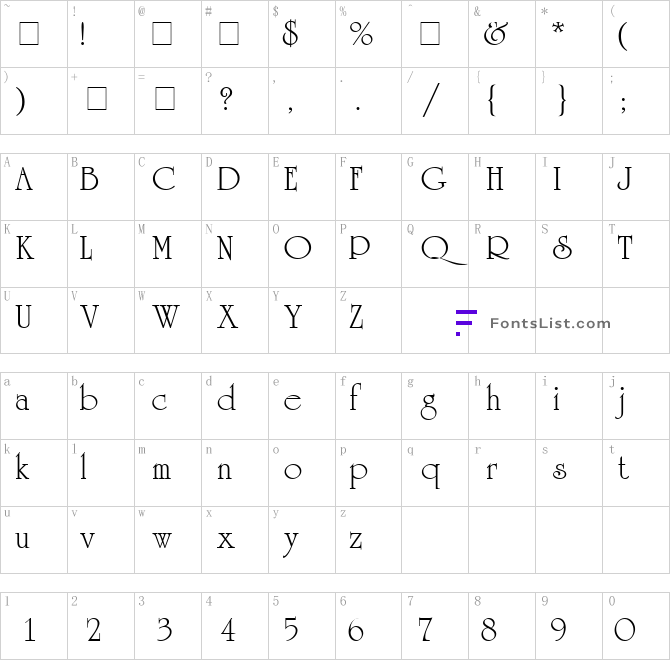
BaltUniversity-Medium.ttf is a very beautiful artistic font, BaltUniversity-Medium.ttf is widely used in the design and printing of various books and pictures,BaltUniversity-Medium.ttf has a strong visual impact,BaltUniversity-Medium.ttf is a commonly used font in newspapers, magazines and books, and is used in posters, e-commerce Poster design, store design, logo design, font design and other fields.BaltUniversity-Medium.